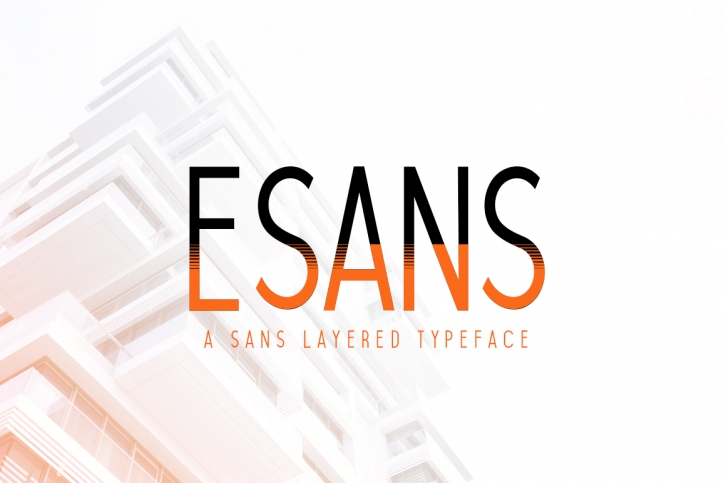
Esans is a stunning layered font that can give your designs a truly cool appeal. This font has an athletic, sporty vibe so you can use it in a large range of fun and fresh projects.